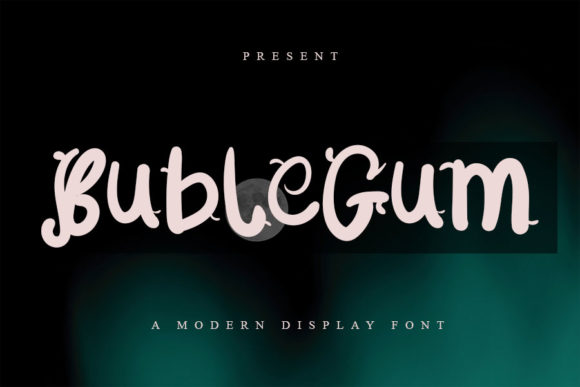
The Sweet Spot: Discovering the BubleGum Font
I’ll never forget the time I was working on a project for a children’s party invitation. I had the design concept nailed, but something was missing – the perfect font. I scrolled through my font library, but nothing seemed quite right. That’s when I stumbled upon BubleGum, a modern and whimsical display font that instantly captured the playful spirit of the party. In this article, I’ll share my experience with BubleGum, its features, and how to make the most of it in your designs.
An Honest Review of BubleGum Font
BubleGum is a simple yet striking font that can elevate your creations. Here’s what I love about it:
• ✨ Unique and eye-catching: BubleGum has a distinctive look that sets it apart from other fonts.
• ✅ Highly versatile: It can be used for various design projects, from party invitations to branding and advertising.
• 💡 Instant appeal: BubleGum has a strong visual effect that can instantly make your creation more appealing.
However, I did notice a few quirks:
• 🤔 Limited use in body text: BubleGum is best suited for headlines and titles, as it may not be the most readable font for longer texts.
• ⚠️ Some glyphs may not be available: As with any font, some special characters or glyphs might not be included in BubleGum.
The Story Behind BubleGum Font
BubleGum was designed with the intention of creating a fun and playful font that captures the spirit of childhood. The designer wanted to create a font that’s both modern and whimsical, perfect for designs that need a touch of personality. While the real story behind BubleGum might be fictional, its impact on designs is very real.
Q: What type of projects is BubleGum best suited for?
BubleGum is ideal for designs that require a playful and modern touch, such as party invitations, children’s books, branding, and advertising.
Q: Is BubleGum a difficult font to read?
BubleGum is designed to be highly legible, but it’s best suited for headlines and titles. For longer texts, you might want to choose a more traditional font.